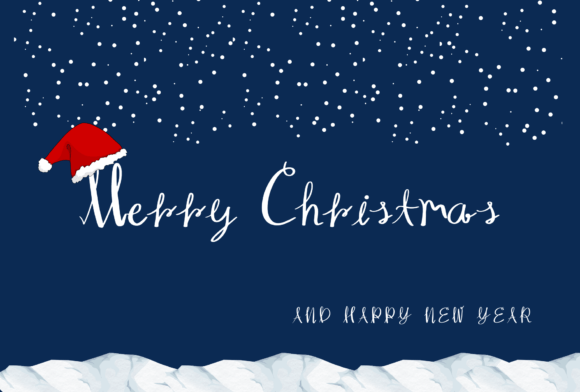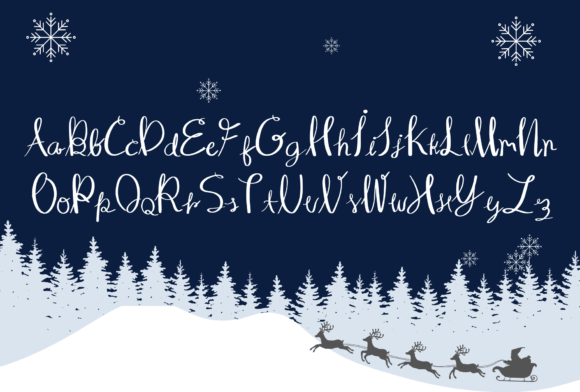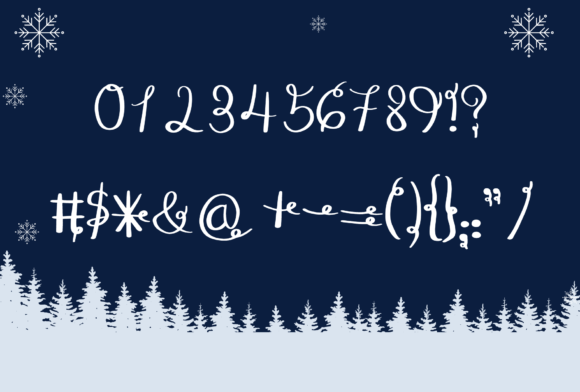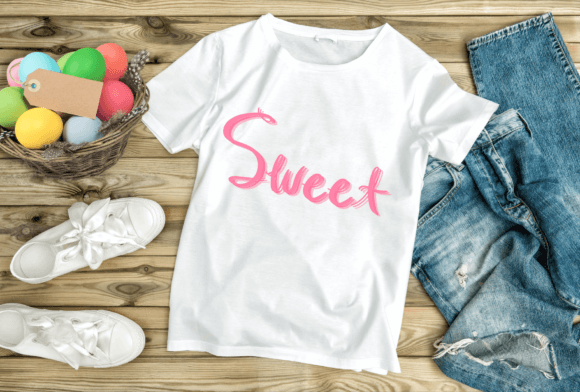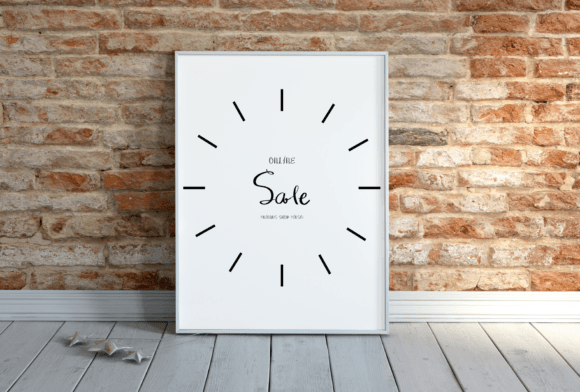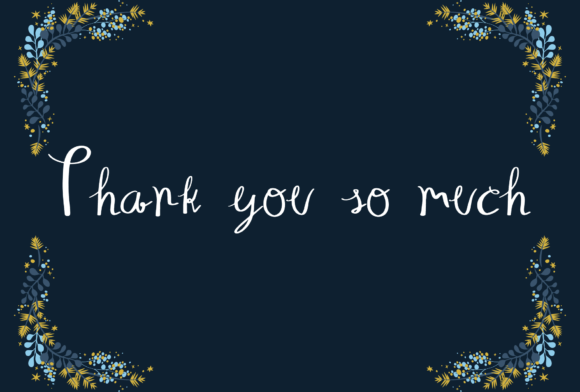
Discovering the Perfect Handwritten Touch: Alexander Font
Have you ever been scribbling away in a notebook, lost in a creative flow, when you suddenly stumble upon the perfect handwritten style? That’s exactly what happened to many designers when they discovered Alexander Font.
With its super cute handwriting style and simple design, Alexander Font is the perfect addition to any project. Whether you’re a teacher looking for a friendly font to use in the classroom, or a designer seeking a versatile font for advertising and illustration, Alexander Font has got you covered. This creative, multi-purpose font is suitable for all applications, making it a valuable asset for designers looking to add a personal touch to their work.
- Unique Characteristics: The Alexander font is known for its elegant and sophisticated design, making it ideal for use in high-end branding, advertising, and publishing projects.
- Style Variations: The font includes multiple style variations, including regular, bold, italic, and bold-italic, providing users with a range of options to suit their design needs.
Designer Review: Alexander Font
Overall, I’m quite impressed with the Alexander Font. Its unique blend of modern and elegant styles makes it a versatile choice for various design projects.
- Legibility: The font is highly legible, even at small font sizes, making it perfect for body text.
- Characteristics: The font’s distinctive characteristics, such as its rounded edges and subtle flair, add a touch of sophistication to any design.
- Lack of variety: While the font is highly legible, it may not be the best choice for titles or headings, as it lacks bold or italic styles.
- Size limitations: The font may not be suitable for very large font sizes, as its rounded edges can become lost at extreme scales.
- Style limitations: The font’s elegance may not be suitable for more casual or playful designs, where a bolder or more playful font would be more fitting.
Overall, Alexander Font is a solid choice for designers looking for a modern, elegant font for body text. While it may have some limitations, its versatility and legibility make it a great addition to any design project.
Getting the Most Out of Alexander Font
To get the most out of Alexander Font, consider the following tips:
- Use it in combination with other serif fonts for a classic look.
- Use Alexander Font in headings and titles to add a touch of elegance.
Alexander Font is commonly used in:
- Editorial design and publishing.
- Brand identity and marketing materials.
Does Alexander Font support ligatures?
Yes, Alexander Font supports ligatures, which are custom-designed letter combinations that improve readability and aesthetic appeal. Ligatures can be enabled or disabled in design software, giving designers control over the typography.